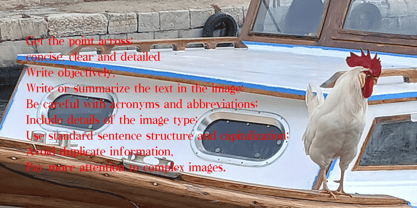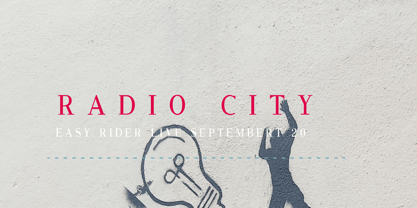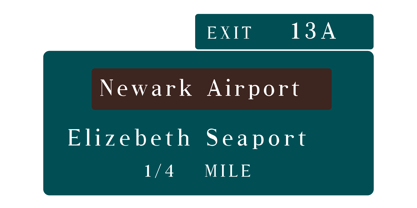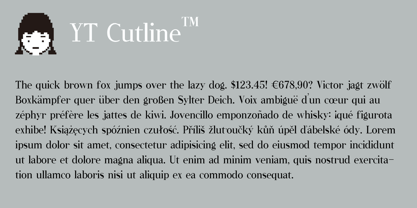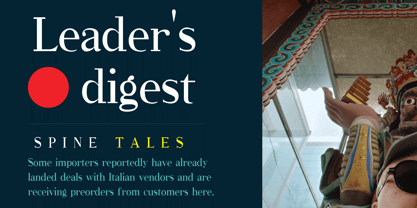
YT Cutline
by Yangtype
The YT Cutline Font Family was designed by Yona Yang and published by Yangtype. YT Cutline contains 1 styles. More about this family
YT Cutline™ is hybrids. Yangtype is based on context, aesthetics, humans, moderation, understanding, society, freedom, capital, opportunity, present, persistence. Serif is already standardized, and breaking that standardization no longer makes it Serif. Serif is closest to human speech and meaning, and thus possesses standardized rules. This font, positioned on the Cutline, is designed to be unfamiliar without breaking the Serif rules.
Designers: Yona Yang
Foundry: Yangtype